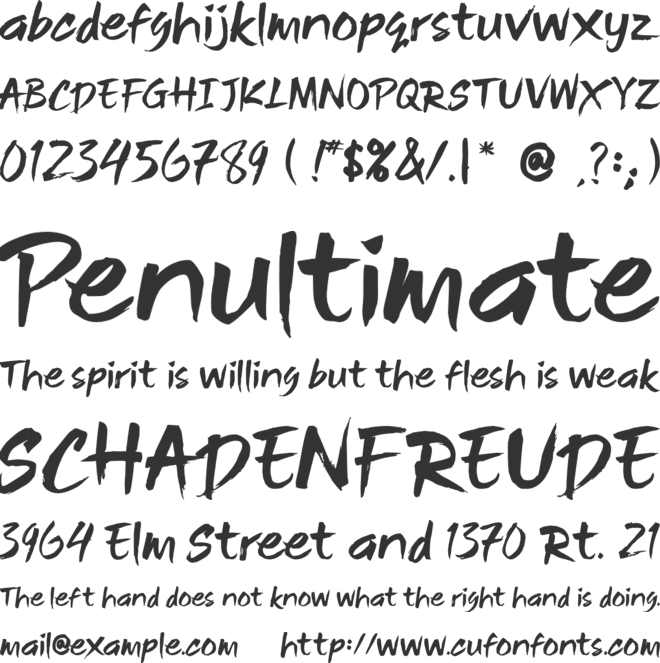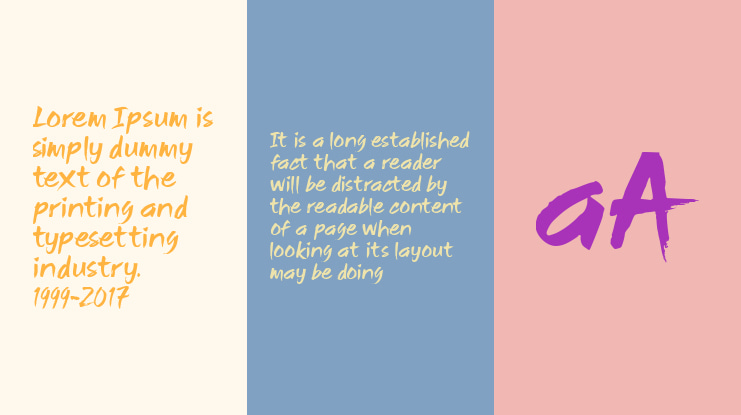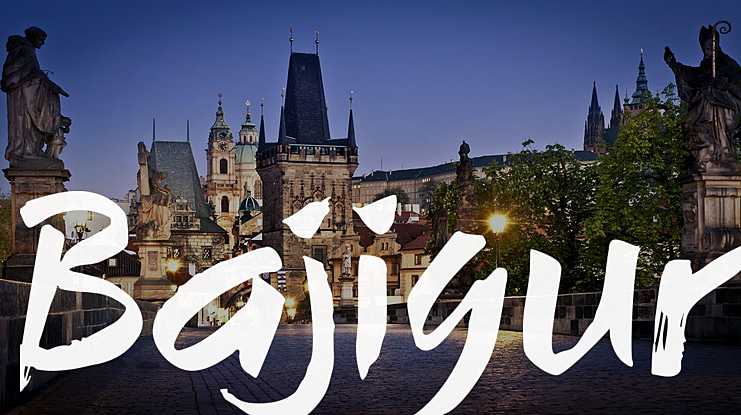
Bajigur Font
Bajigur Brush Font is a handmade brush font with free flowing bold, vigorous, stand out with keep the natural taste. Bajigur brush typeface font includes in uppercase, lowercase letters, standard numbers and punctuation. Bajigur Font is free for personal use. Please download & enjoy !!